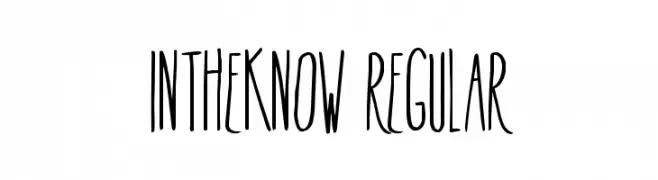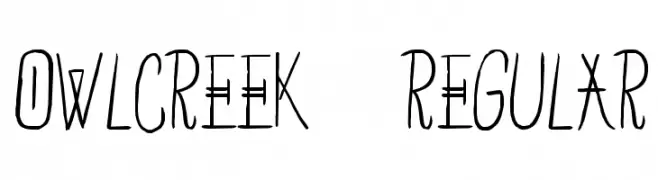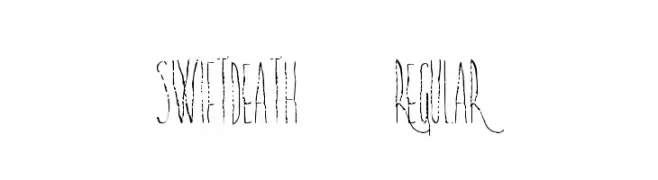
A tall, narrow, hand-drawn font with a whimsical and playful style.
A bold, geometric font with a 3D shadow effect, ideal for retro and modern designs.
A playful, casual handwritten font with smooth, flowing lines.
A tall, narrow, and playful font with consistent stroke width.
A bold, dynamic font with sharp, angular edges and a fierce, energetic style.
A bold, stencil-style font with sharp angles and high contrast, ideal for impactful designs.
A playful, hand-drawn font with tall, narrow characters and a whimsical style.
A bold, textured, hand-drawn font with a dynamic and energetic style.
A modern, clean sans-serif font with geometric letterforms and uniform stroke width.
A dramatic, edgy font with elongated, sharp strokes and a distressed texture.